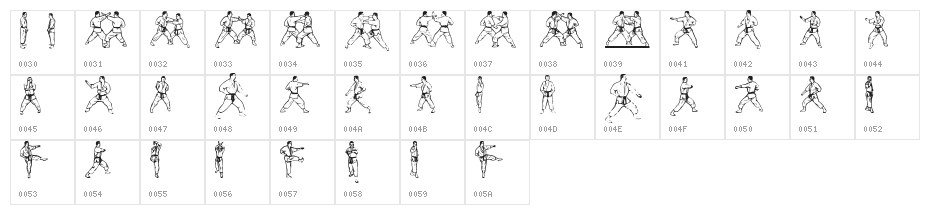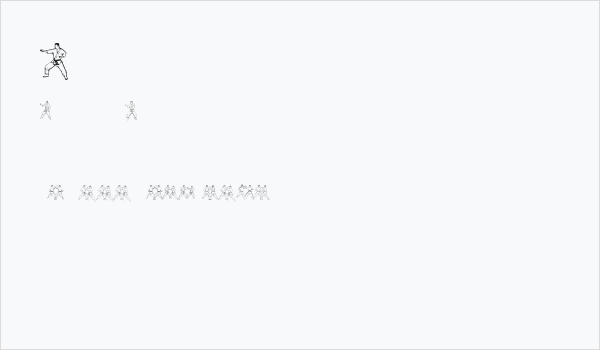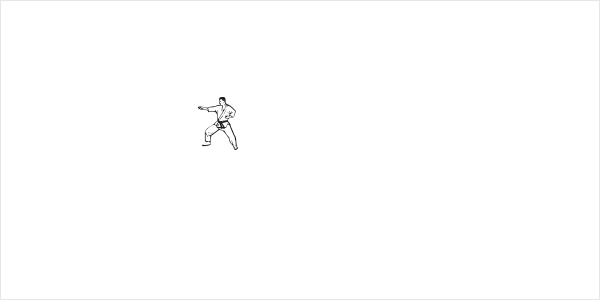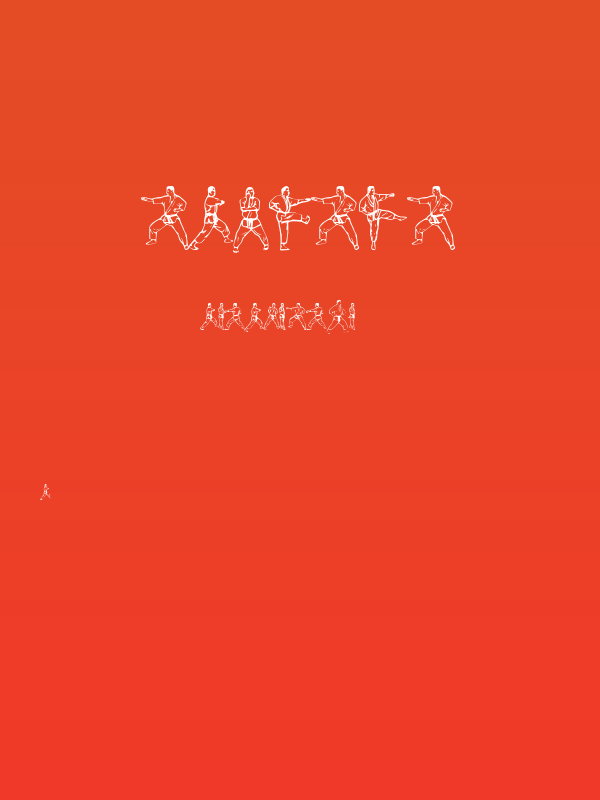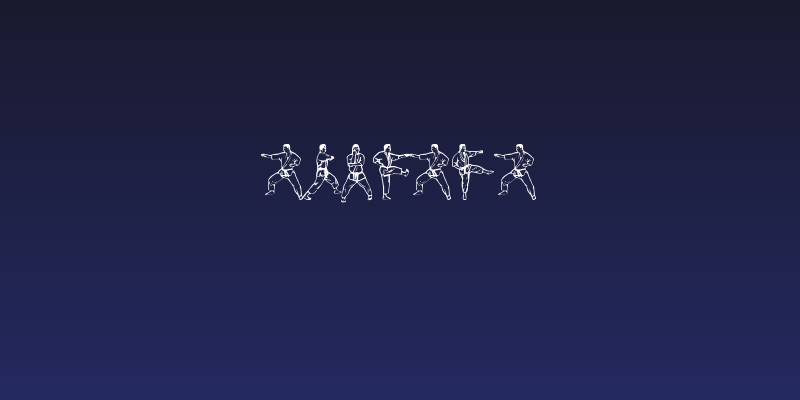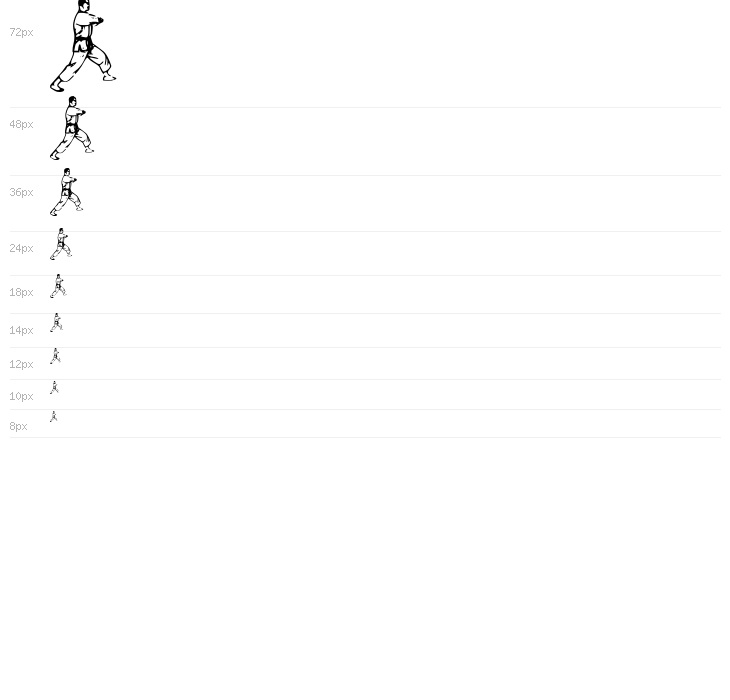
Atewaza Font
Atewaza Description
A decorative display font featuring detailed illustrations of martial artists in various poses and stances, arranged to represent characters. Each character is depicted as a figure performing a martial arts move, creating a unique and thematic visual style.
| Overall Style | Thematic, illustrative, action-oriented |
| Use Case | Headlines, logos, thematic branding |
| Proposed Projects | Martial arts event posters, dojo branding, sports apparel design, themed invitations, and action-oriented graphic projects. |